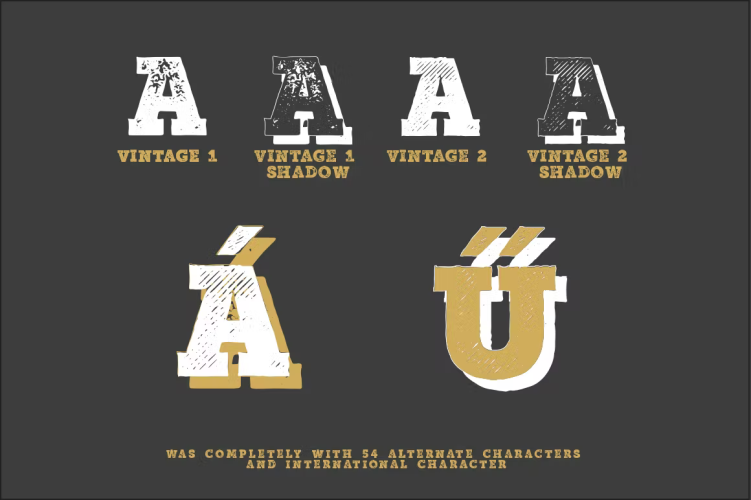
Mutiara Vintage Font
We present tou you Mutiara Vintage a typeface with vintage taste, including 4. font. The font family is slab, bold, rough, multilingual supoorted and was completely 54 alternate character. best to your typography, headline, t-shirt design.
Mutiara Vintage Font is a Web Fonts font that brings a professional and versatile look to your projects. We present tou you Mutiara Vintage a typeface with vintage taste, including 4.